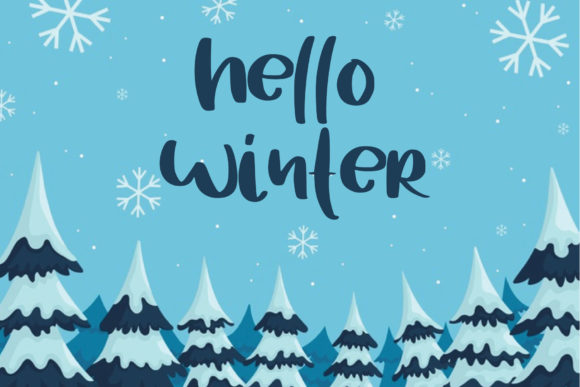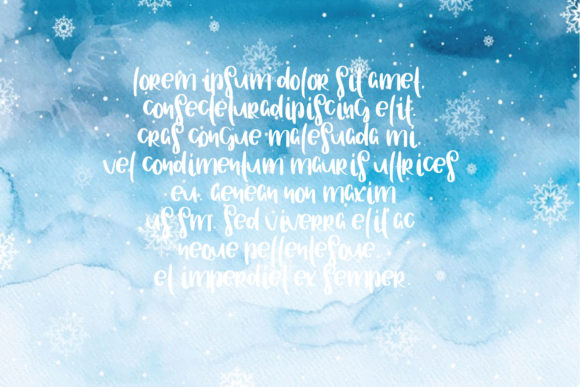
About Santa Claus Font
Santa Claus is a gorgeous and beautiful handwritten font, crafted to give your headlines and logotype projects a stylish touch. This font reads as confident and dynamic and can add tons of nostalgic character to your designs.